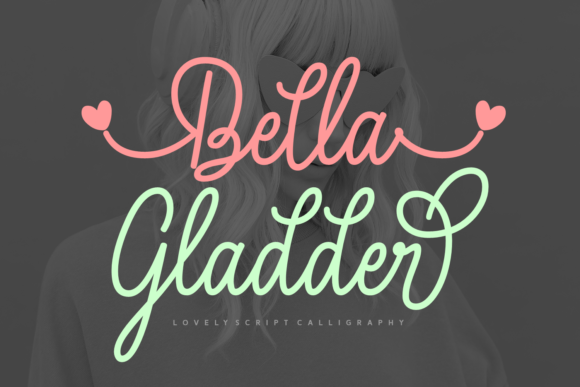
Bring a Touch of Elegance to Your Designs
Have you ever found yourself sitting at your desk, staring at a blank page, waiting for the perfect font to inspire your next creative project? That’s exactly what happened to me last week, and I’m still in awe of the discovery I made – the Bella Gladder Font. This beautiful script calligraphy font has a way of transporting you to a world of elegance and sophistication, making it the perfect choice for any project that requires a touch of class.
Whether you’re a seasoned designer or just starting out, the Bella Gladder Font is a valuable addition to your toolkit. Its versatility and timelessness make it suitable for a wide range of applications, from cards and quotes to books and posters. With the Bella Gladder Font, you’ll be able to add a personal touch to your designs that will leave a lasting impression on your audience.
Bella Gladder Font Key Features
- Font Family: Bella Gladder
- Unique Characteristics: This font features a playful, handwritten style with a mix of elegance and whimsy, making it perfect for use in invitations, greeting cards, and other creative projects
Bella Gladder Font Review
I recently had the chance to work with the Bella Gladder font, and I must say it’s an interesting addition to any design project. Here’s what I liked and didn’t like:
- The font’s playful and elegant feel makes it perfect for branding and marketing materials.
- The font is highly customizable, allowing for a range of styles and layouts to suit different design needs.
- The font’s high x-height makes it easily readable, even at small sizes.
- It’s also quite versatile and can be used for both digital and print materials.
- The font may not be the best choice for body text, as it can be a bit too ornate and overwhelming.
- The font’s bold weight can be a bit too heavy-handed, making it difficult to read at larger sizes.
- The font’s italics can be a bit too slanted, which may not be suitable for all design projects.
The Bella Gladder font is a solid addition to any design library, but it’s not without its limitations. While it excels at creating eye-catching headlines and branding materials, it may not be the best choice for body text or more straightforward design projects. With a bit of creative restraint, however, this font can be a valuable asset in any designer’s toolkit.
The Bella Gladder Font is ideal for creative projects, such as:
– Wedding invitations
– Party flyers
– Personal branding materials
– Any design that requires a unique and elegant touch.